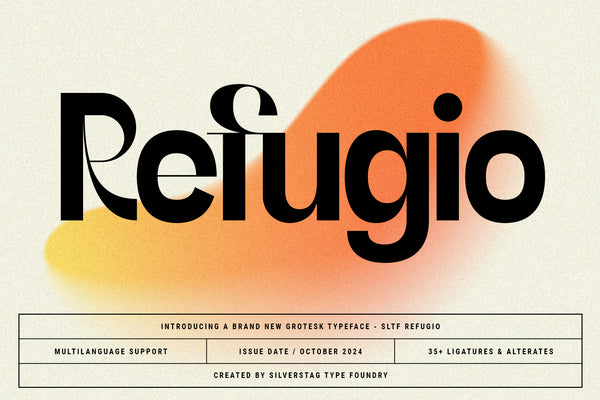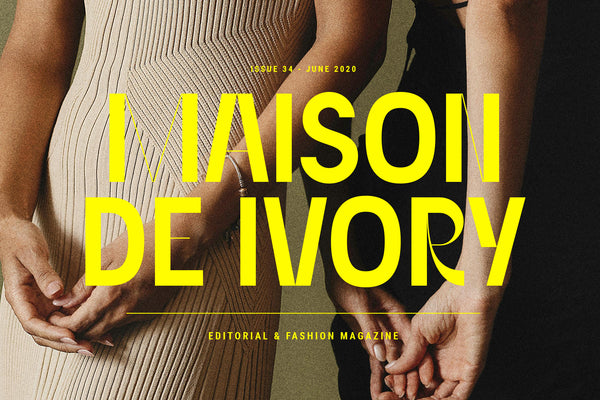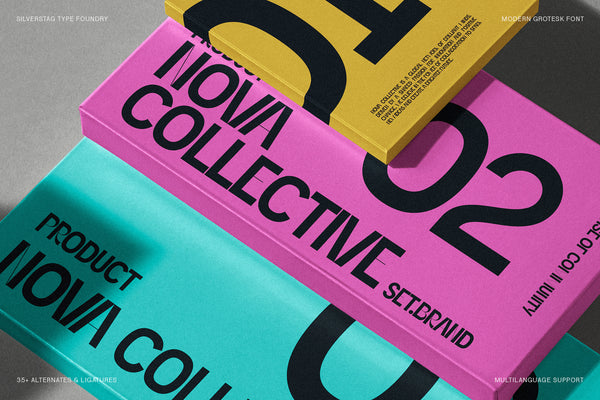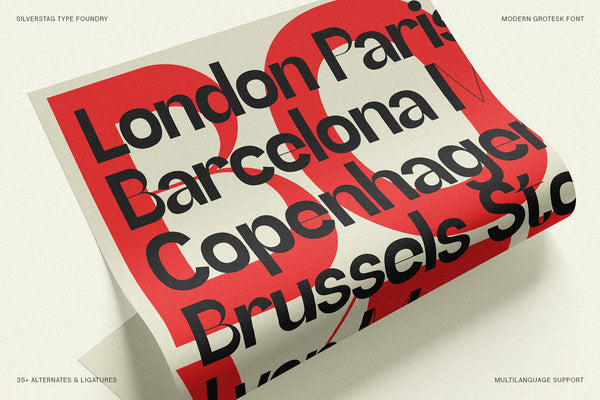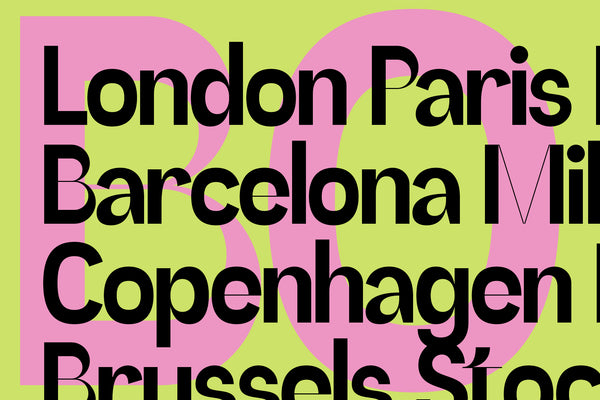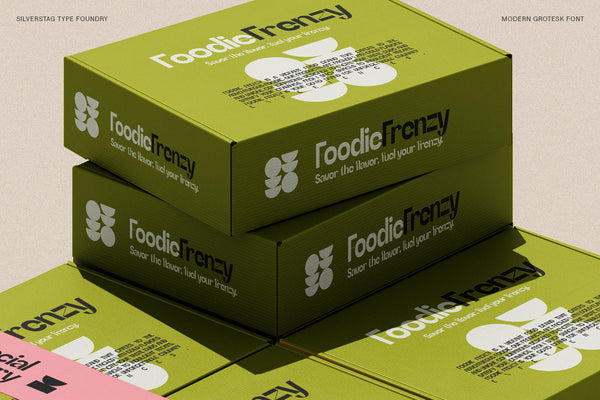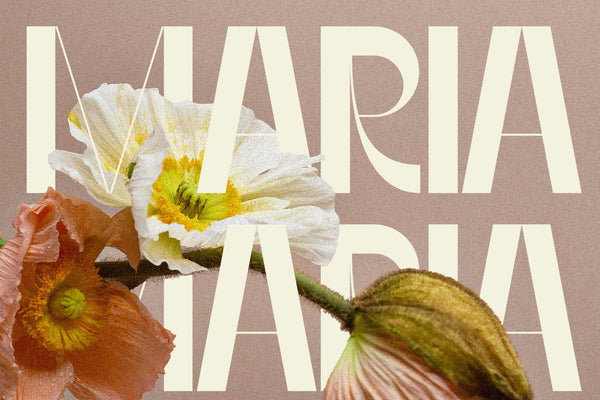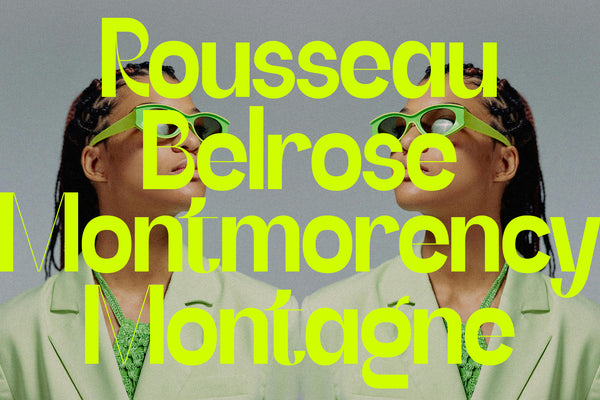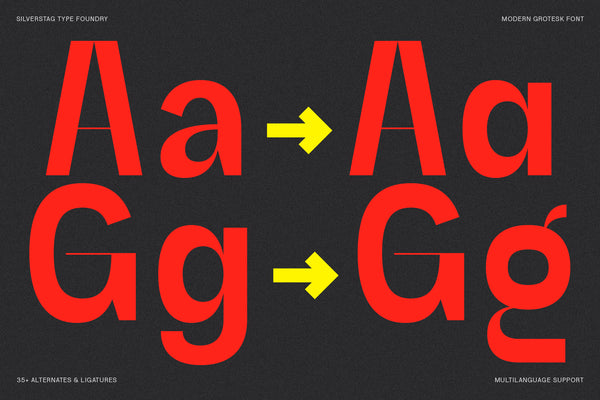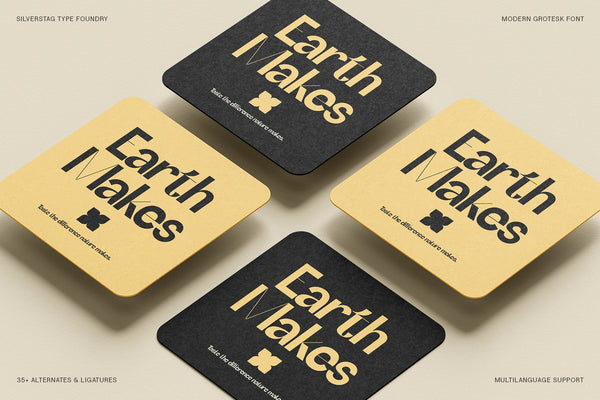
SLTF Refugio is a modern grotesk sans serif typeface designed as a sanctuary for creative expression. Balancing the clean structure of traditional grotesks with soft, unexpected curves and chic letterforms, Refugio brings warmth and personality to your typography.
Perfect for both headlines and body copy, Refugio transitions seamlessly across design applications—from branding and web design to editorial layouts and packaging. Its 35+ expressive ligatures and alternates give you the tools to create truly unique compositions with a custom, artful feel.
Thoughtfully crafted and globally inclusive, Refugio supports 90+ languages, making it ideal for international brands and cross-cultural storytelling. With clarity, sophistication, and subtle charm, it’s a modern sans serif that dares to feel personal.